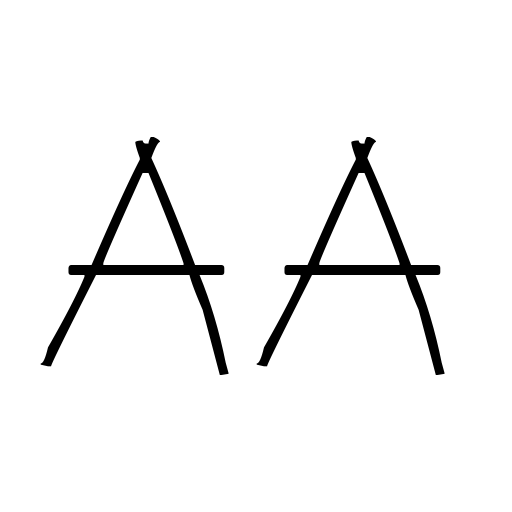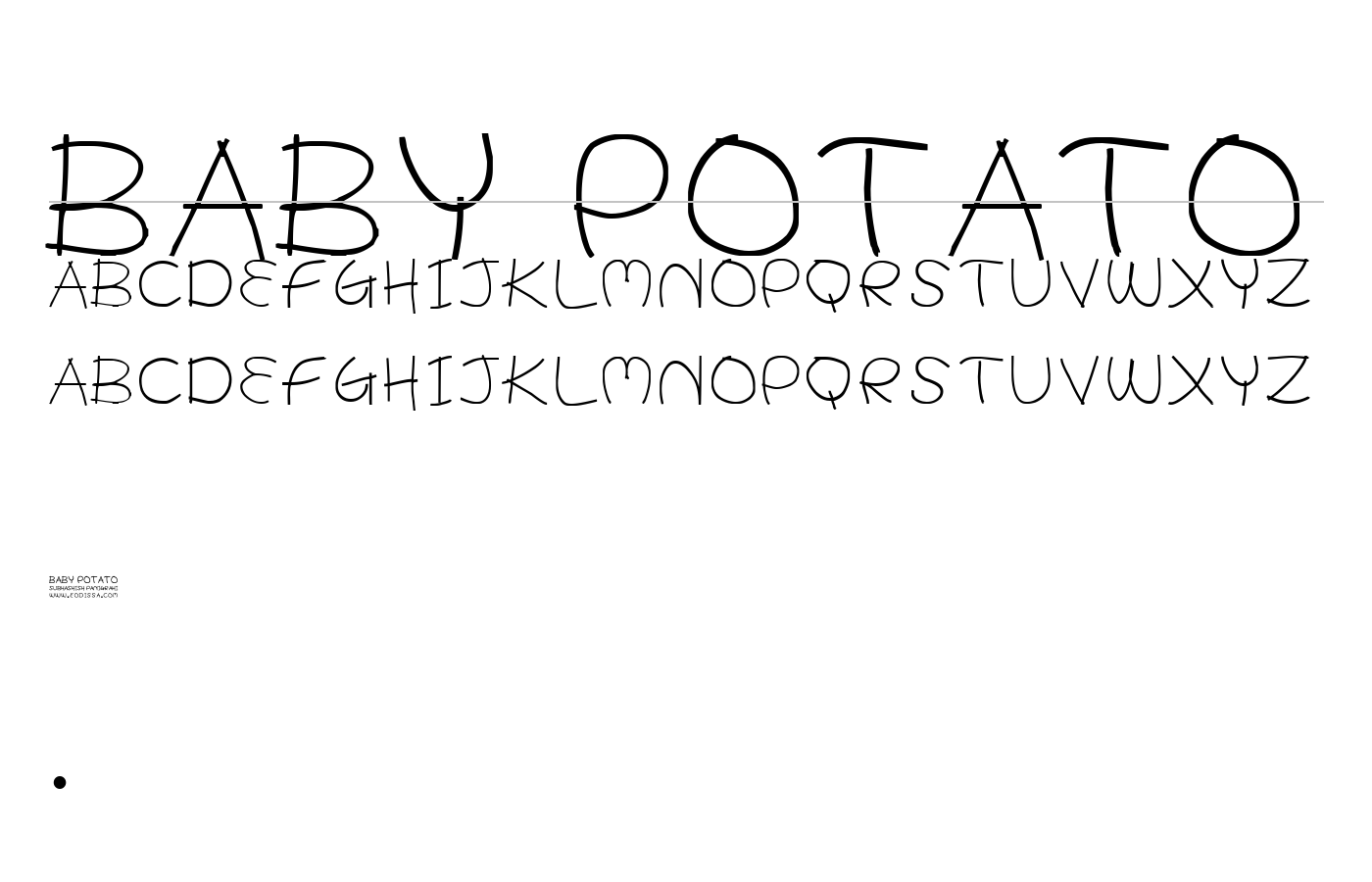
Baby Potato is a playful, hand-drawn sans serif font characterized by its tall, narrow letterforms and irregular strokes that give it a quirky, informal vibe. Its light weight and airy spacing make it ideal for projects aiming for a fun and approachable feel, such as children’s books, casual branding, or creative headlines. This font’s handwritten style brings a touch of whimsy and personality, making it perfect for designs that want to communicate friendliness and creativity.
BABY POTATO Font